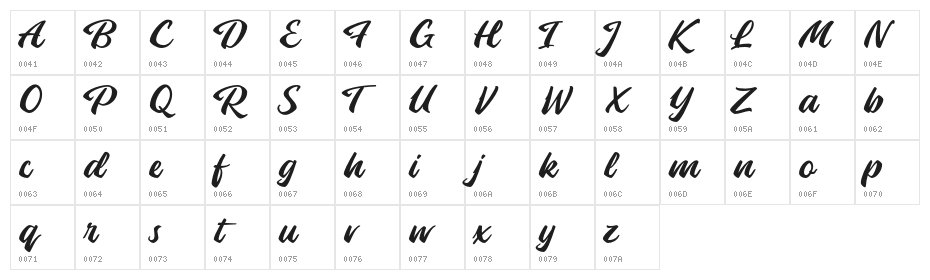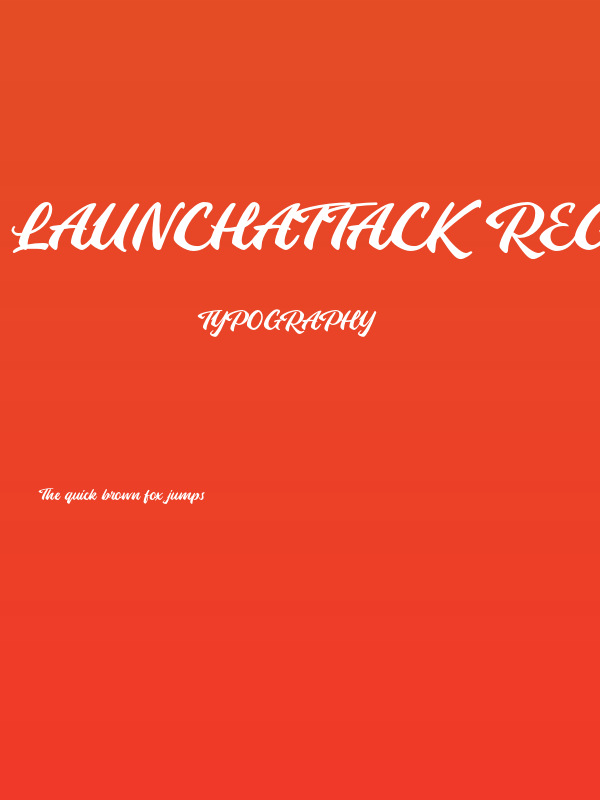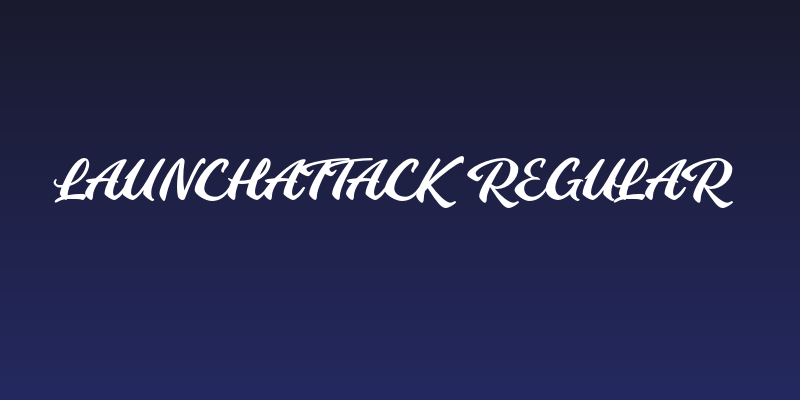
LaunchAttack-Regular Font
LaunchAttack-Regular Description
This font features a bold and dynamic script style with a strong presence. The characters are connected in a fluid manner, giving it a sense of motion and energy. The uppercase letters are particularly striking, with sweeping curves and sharp angles that create a dramatic effect. The lowercase letters maintain the same fluidity, with a slightly more compact form. The overall appearance is both elegant and assertive, making it suitable for designs that require a bold statement. The font's thick strokes and high contrast enhance its readability while maintaining its decorative appeal.
| Proposed Projects | Ideal for branding, logos, headlines, and posters where a strong, elegant statement is needed. |